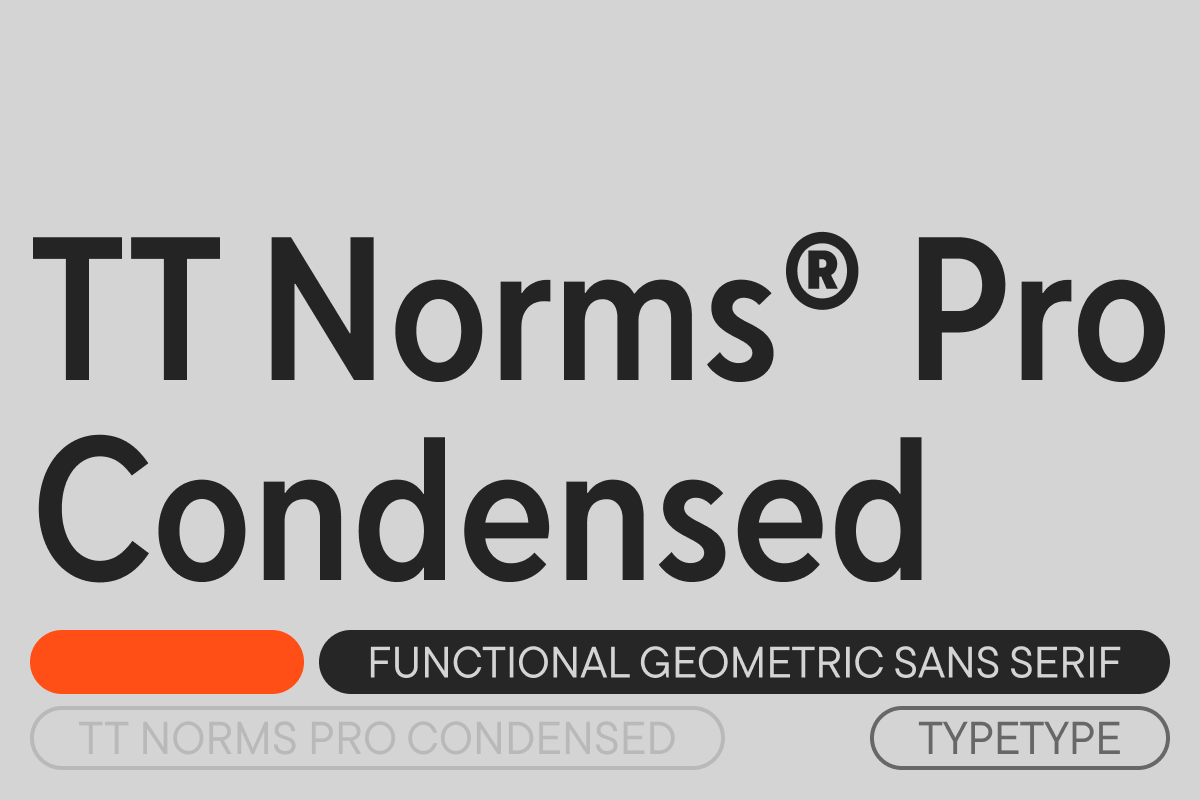
TT Norms Pro Condensed Regular
TT Norms® Pro is a functional geometric sans serif for aesthetic solutions, a bestseller from TypeType studio. This is a stylish, elegant, and versatile typeface that will serve as a solid foundation for your collection. On one hand, TT Norms® Pro is aesthetic and functional, which allows it to be used as an accent. On the other hand, the font is neutral enough to be the perfect «workhorse» that provides impeccable readability and creates consistent setting in running text.